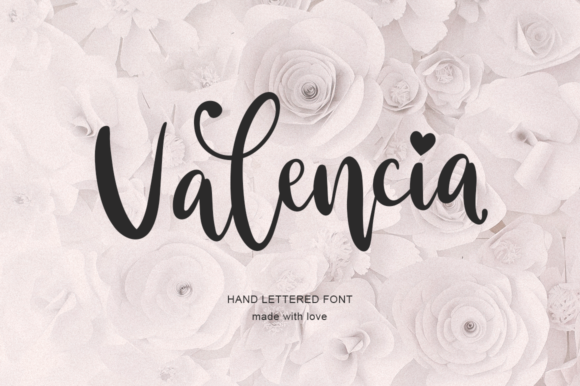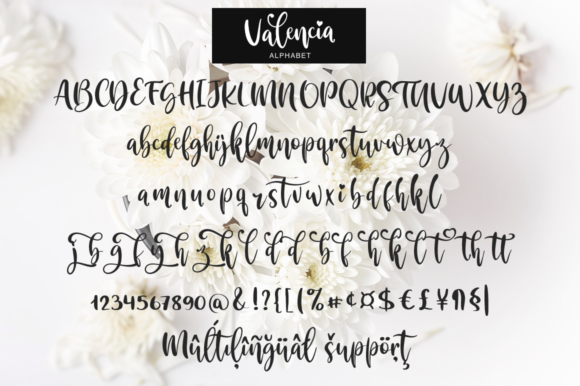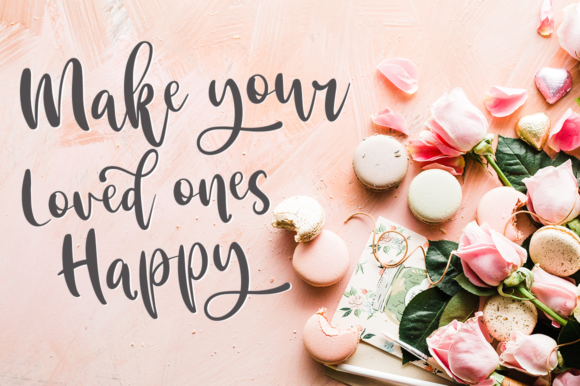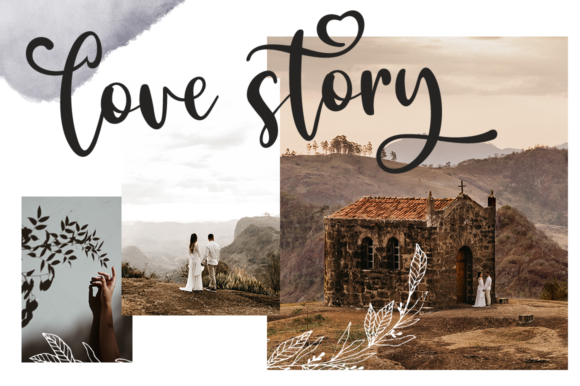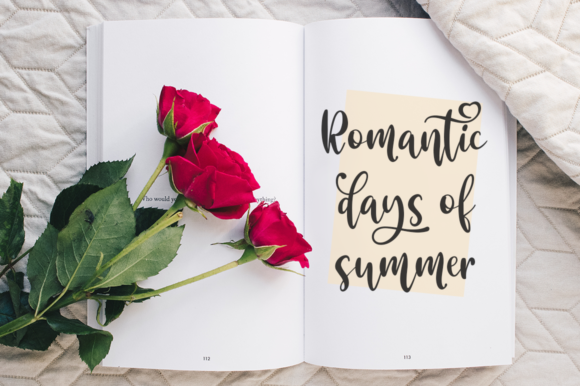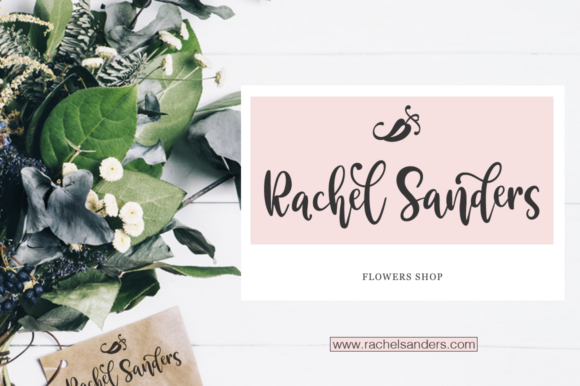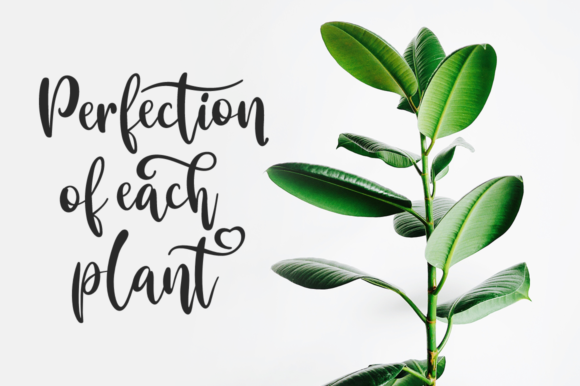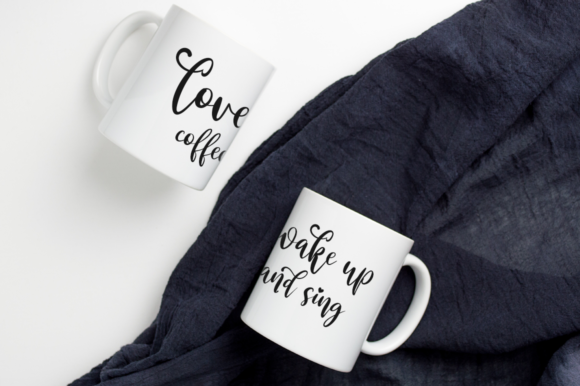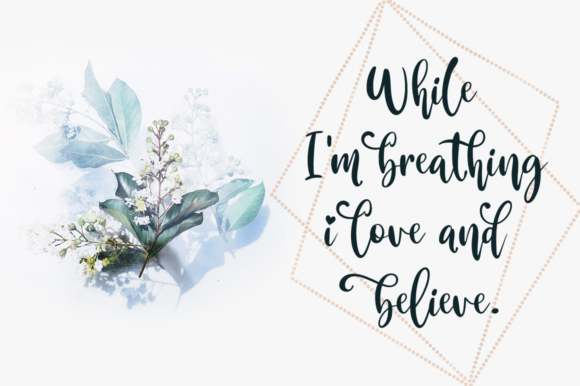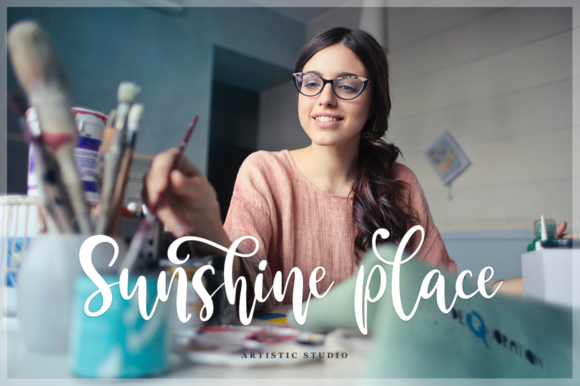
HomeScript FontsValencia Font Script Fonts Valencia Font FacebookXPinterestWhatsApp Valencia Font Poster 2 Valencia Font Poster 3 Valencia Font Poster 4 Valencia Font Poster 5 Valencia Font Poster 6 Valencia Font Poster 7 Valencia Font Poster 8 Valencia Font Poster 9 Valencia Font Poster 10 About Valencia Font Valencia is a beautiful script that will fill any crafting project with heart, love and inspiration. DOWNLOAD ON CREATIVE FABRICAThis font is sold and delivered by Creative Fabrica. Font Canyon may earn a commission if you buy through this link. People also explored Think Positive Font The Curious Cat Font Brilliant Font Dubble Marinthea Font Blackmoon Font Nightmarish Font Something Cool Font Flower Font 295 0 TagsValencia Font Previous articleBorris FontNext articleKaftice Font LEAVE A REPLY Cancel reply Comment: Please enter your comment! Name:* Please enter your name here Email:* You have entered an incorrect email address! Please enter your email address here Website: Save my name, email, and website in this browser for the next time I comment. Personal Use Free Artisan Signature Personal Use Free Read more about this font Fadhista Personal Use Free Read more about this font Velasco Personal Use Free Read more about this font Loving Personal Use Free Read more about this font BLOG Elegant Wedding Invitation Fonts – Handwritten & Script Fonts Elegant Wedding Invitation Fonts Your wedding day is one of the most important moments of your life, and every detail matters—including your invitation design. Our... Using Fonts in Digital Marketing: Tips to Strengthen Your Brand Identity Free vs Paid Fonts: Why Investing in Premium Fonts Is Worth It How to Cut Any Font on Cricut: Convert a Font to SVG (Free)